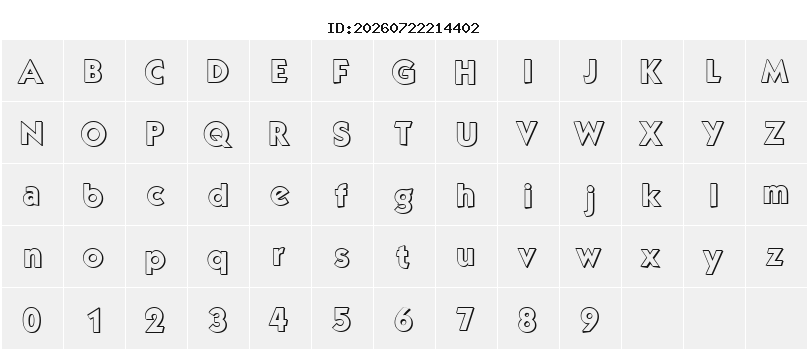
• Font Name: Mouser Outline
• Font Style: Outline
• Full Font Name: Mouser Outline
About Mouser Outline.ttf
Mouser Outline.ttf is a modern, elegant sans-serif font designed for ultimate readability and visual harmony. Perfect for branding, headlines, web design, and print materials.